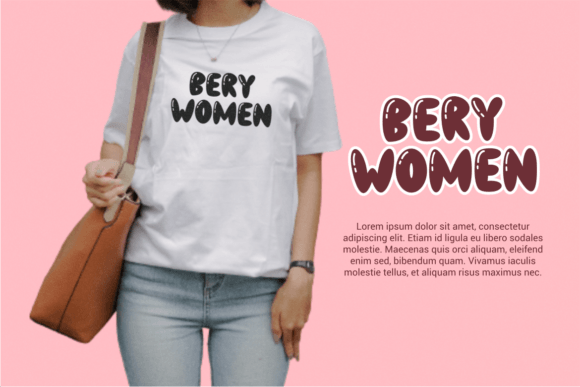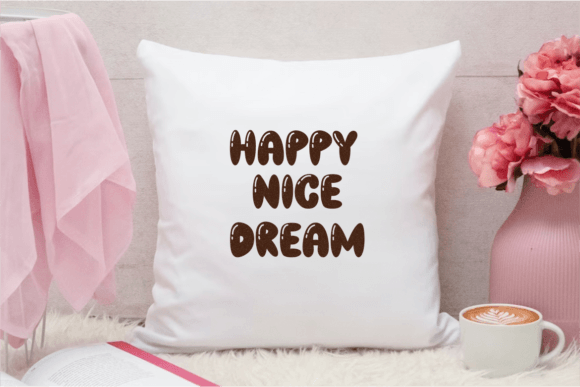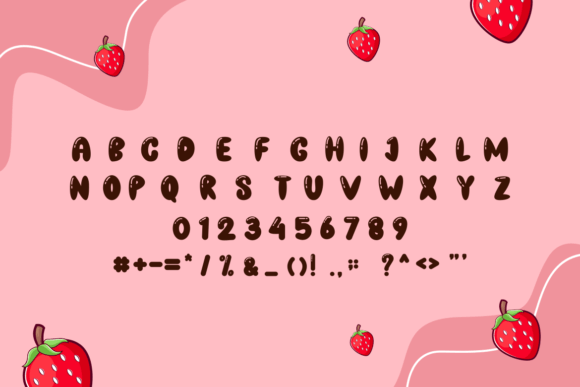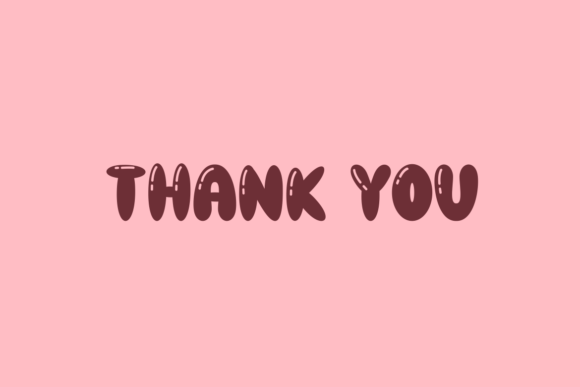
Coco Bery Font: The Ultimate Display Font for Friendly Designs
Are you tired of using the same old fonts for your designs? Look no further than Coco Bery, a childish and easy-to-read display font that’s perfect for conveying impeccable friendliness. This versatile font is ideal for a wide range of design projects, from crafts and digital design to presentations and greeting cards. In this article, we’ll take a closer look at Coco Bery and explore its features, benefits, and uses.
What is Coco Bery Font?
Coco Bery is a display font designed to add a touch of friendliness and approachability to your designs. Its childish and playful style makes it perfect for projects that require a fun and youthful vibe. The font is easy to read, even at small sizes, making it ideal for use in a variety of design applications.
Key Features of Coco Bery Font
- Childish and playful style: Coco Bery’s unique design makes it stand out from other fonts. Its playful style is perfect for designs that require a fun and youthful vibe.
- Easy-to-read: The font is optimized for readability, making it easy to use in a variety of design applications, from digital design to print materials.
- Versatile: Coco Bery is a versatile font that can be used for a wide range of design projects, including crafts, digital design, presentations, and greeting cards.
- Impeccable friendliness: The font’s friendly style makes it perfect for designs that require a warm and approachable tone.
Benefits of Using Coco Bery Font
So why choose Coco Bery for your design projects? Here are just a few benefits of using this versatile font:
- Adds a personal touch: Coco Bery’s playful style adds a personal touch to your designs, making them more relatable and engaging.
- Perfect for creative projects: The font’s childish style makes it perfect for creative projects, such as crafts, DIY tutorials, and children’s books.
- Easy to pair with other fonts: Coco Bery’s unique style makes it easy to pair with other fonts, allowing you to create visually appealing designs.
- Great for digital design: The font is optimized for digital use, making it perfect for social media graphics, website headers, and other digital design projects.
Uses of Coco Bery Font
Coco Bery is a versatile font that can be used for a wide range of design projects, including:
- Crafts: Use Coco Bery to add a personal touch to your craft projects, such as handmade cards, gift tags, and scrapbooking.
- Digital design: The font is perfect for digital design projects, such as social media graphics, website headers, and email newsletters.
- Presentations: Add a touch of friendliness to your presentations with Coco Bery, making them more engaging and relatable.
- Greeting cards: Use Coco Bery to create personalized greeting cards for special occasions, such as birthdays, holidays, and weddings.
Tips for Using Coco Bery Font
Here are a few tips for getting the most out of Coco Bery:
- Experiment with font sizes: Coco Bery is optimized for readability, but you can still experiment with different font sizes to create visual interest.
- Pair with other fonts: Don’t be afraid to pair Coco Bery with other fonts to create visually appealing designs.
- Use for headlines and titles: Coco Bery’s playful style makes it perfect for use in headlines and titles, adding a touch of friendliness to your designs.
In conclusion, Coco Bery is a versatile and friendly display font that’s perfect for a wide range of design projects. Its childish and easy-to-read style makes it ideal for use in crafts, digital design, presentations, and greeting cards. With its impeccable friendliness and playful style, Coco Bery is sure to become your go-to font for all your design needs.